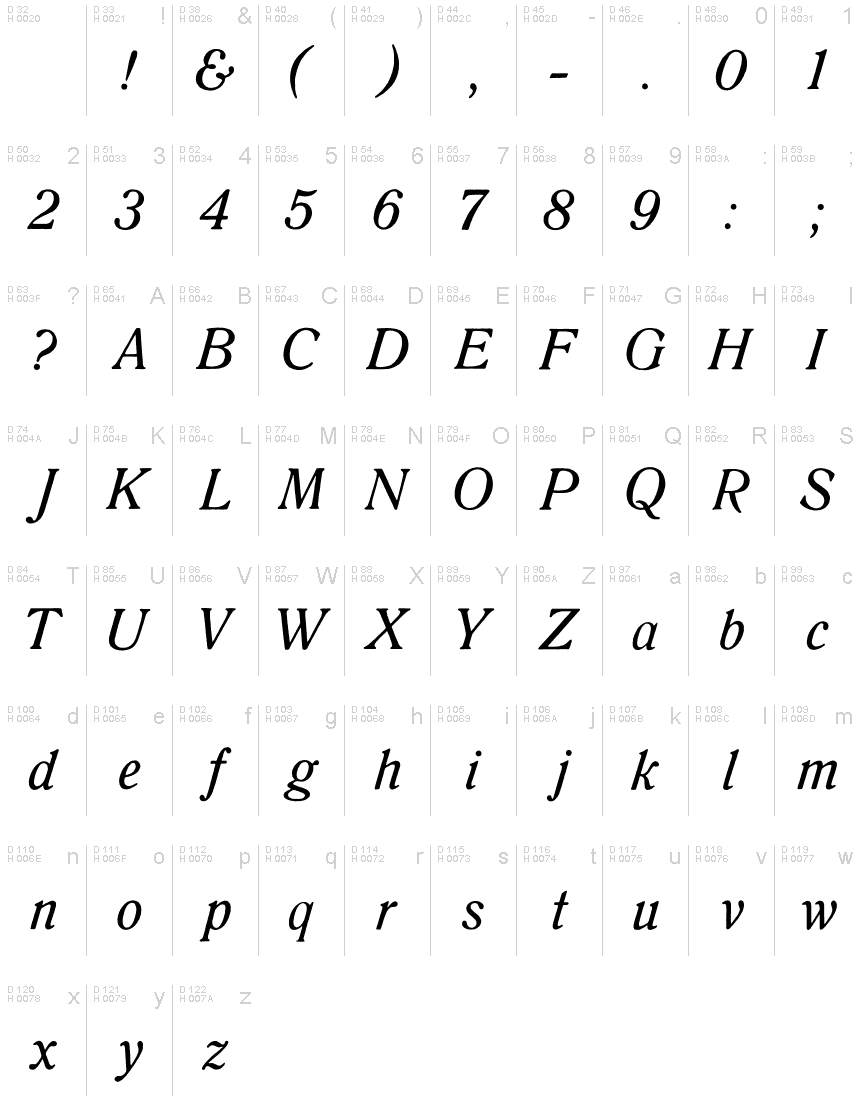
Romaansch Italic
Romaansch Italic, designed by Michael Hennessey, is a stunning serif font that is perfect for projects requiring a touch of sophistication and elegance. Its semi-light weight gives it a delicate yet refined look that is ideal for various design works such as wedding invitations, book covers, and editorial publications. With its classic and timeless appeal, Romaansch Italic adds an air of luxury to any project. Whether you're working on a fashion magazine or creating a brand identity for a high-end product, this font typeface can elevate your designs to the next level. Try Romaansch Italic today and see how it can transform your work into something truly remarkable!
Derived from multiple source scans of pre-1921 Type Specimen sheets, this is an Old Style serif font in the "Roman" classification. It's name comes from one version found in the v/a Nettenrode Foundry circa 1920.